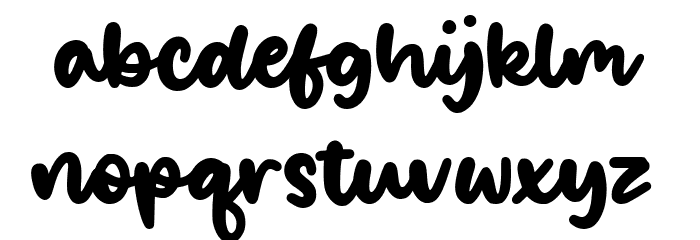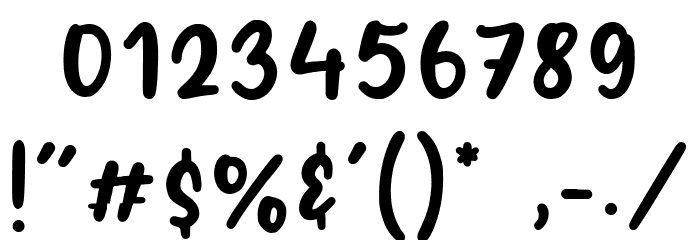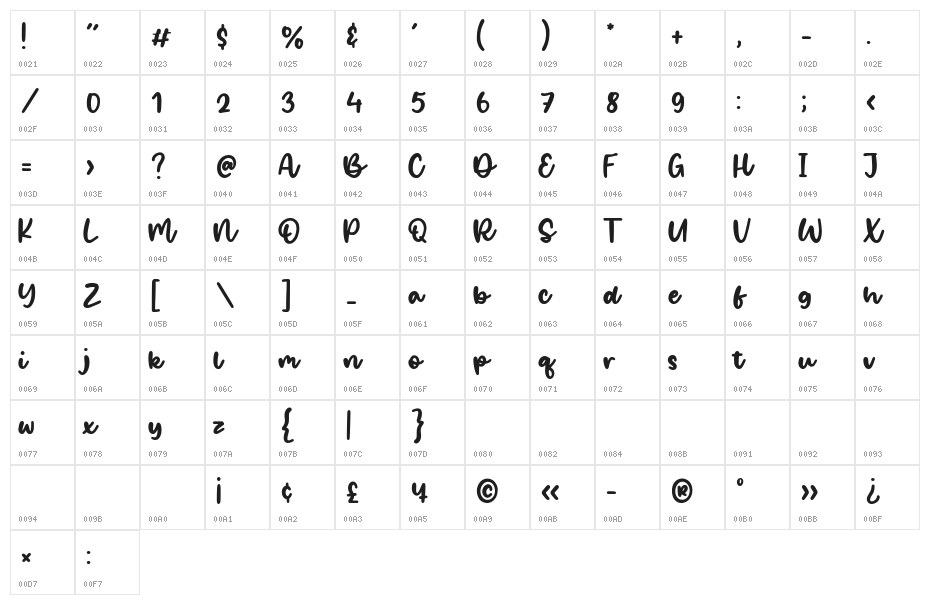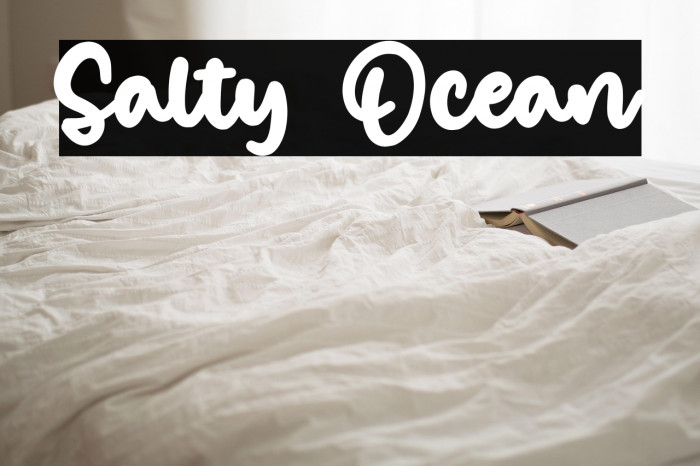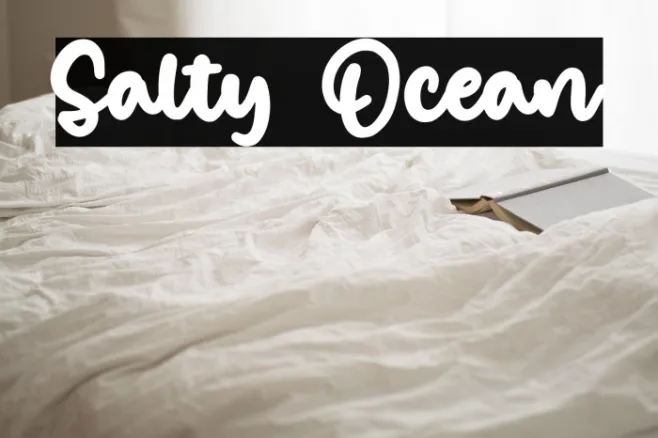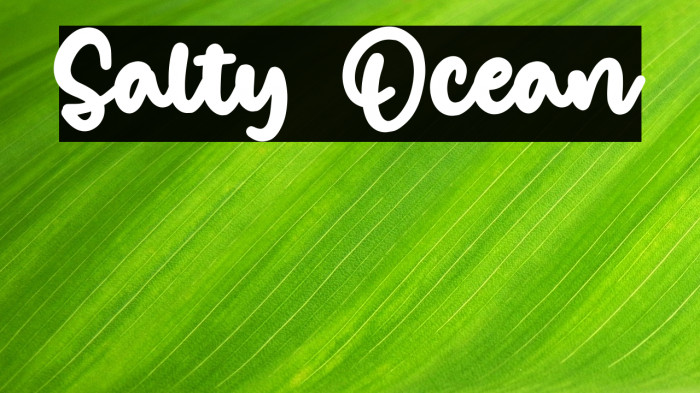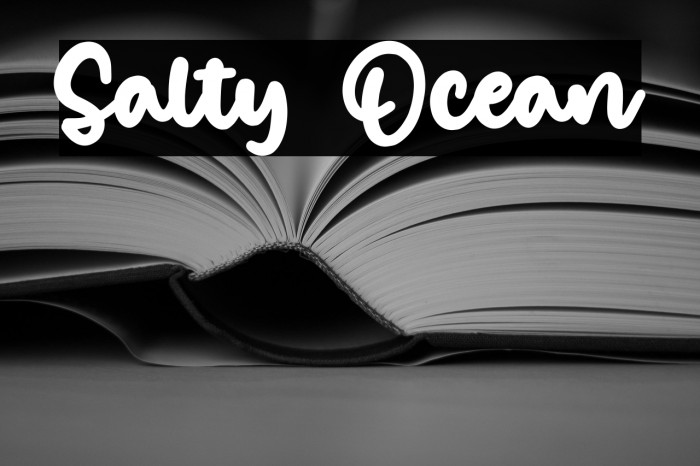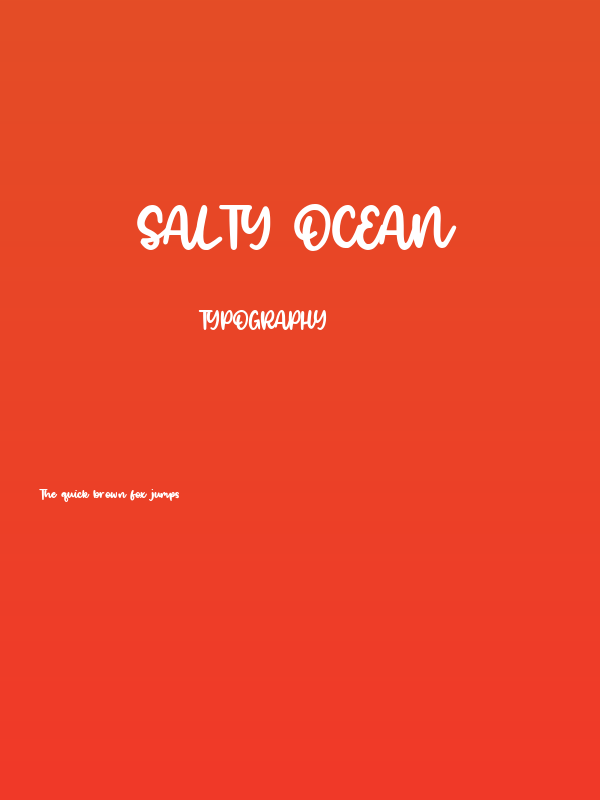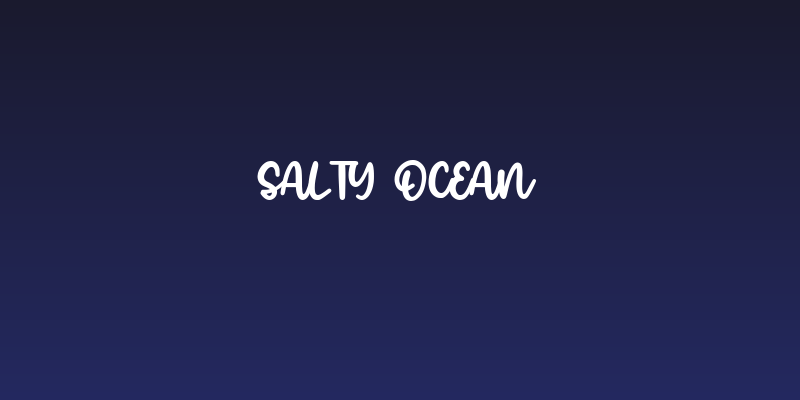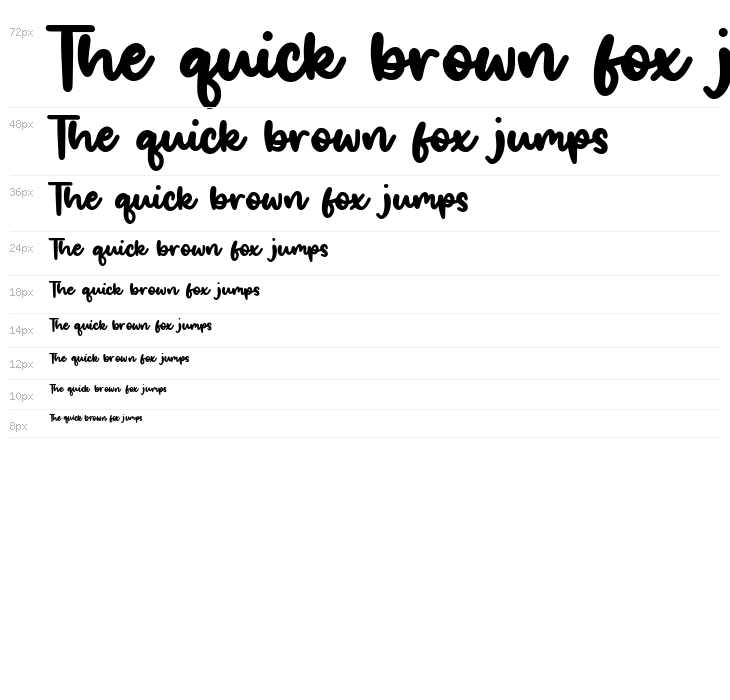
Salty Ocean Font
This playful and energetic font features bold, rounded strokes with a handwritten style, giving it a casual and friendly appearance. The letters are interconnected, creating a fluid and continuous look that mimics natural handwriting. The uppercase and lowercase characters maintain a consistent style, with a slight slant that adds to the dynamic feel. The numbers and special characters are designed to match the overall aesthetic, ensuring a cohesive look across all elements. This font's thick strokes and smooth curves make it highly legible while retaining a unique charm.
A bold, handwritten-style font with rounded strokes and a playful, fluid appearance.
- Proposed Projects: Ideal for greeting cards, playful branding, social media graphics, and children's book covers.
- Overall Style: Playful